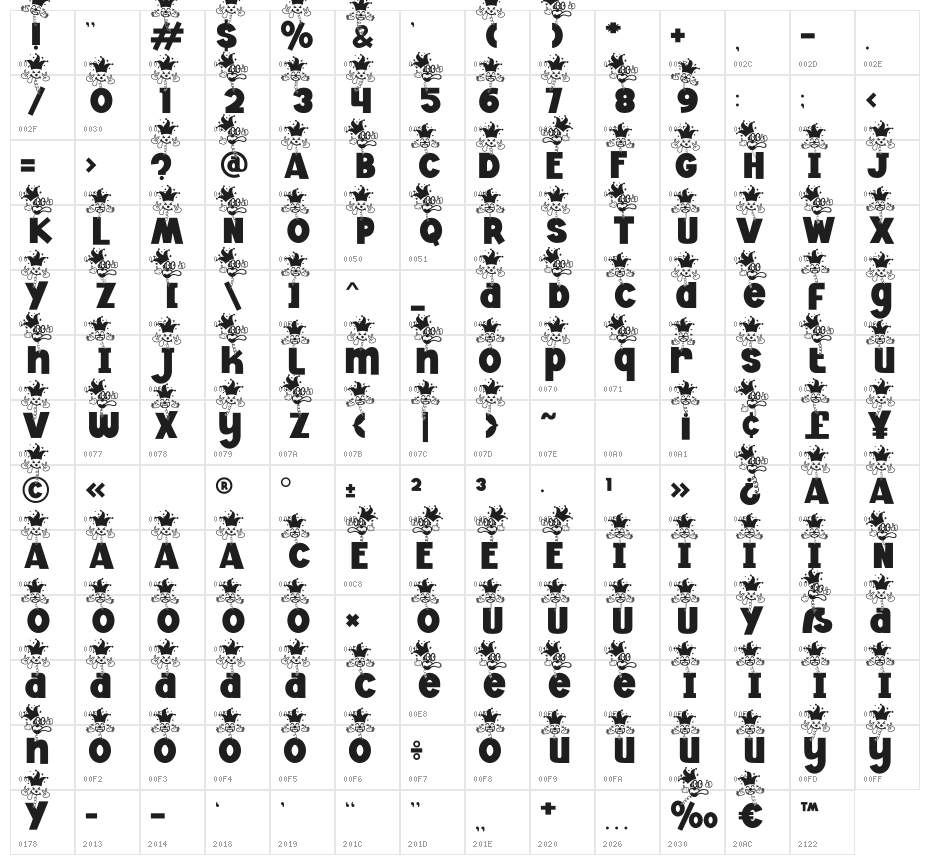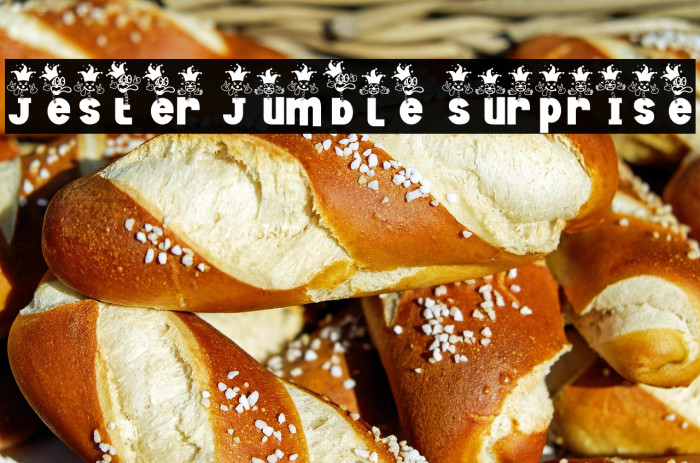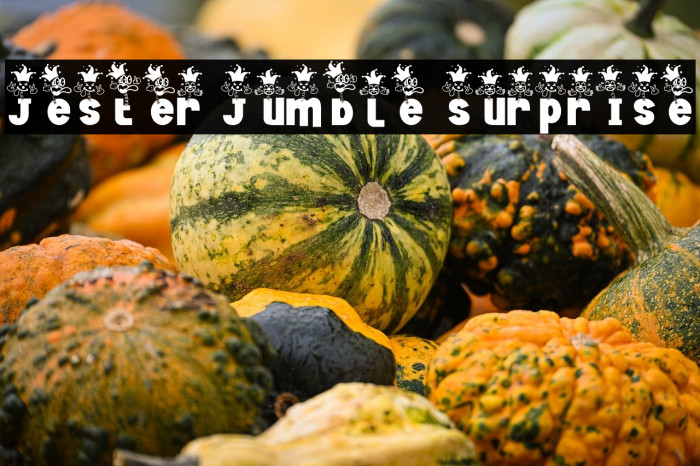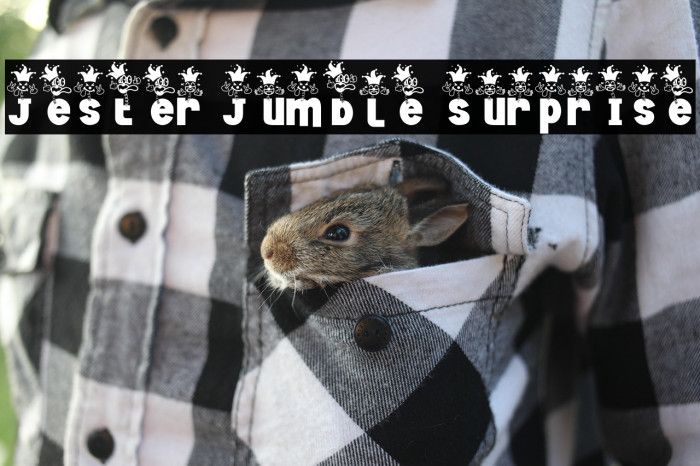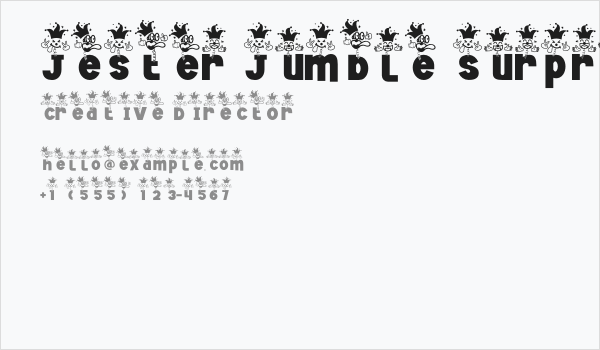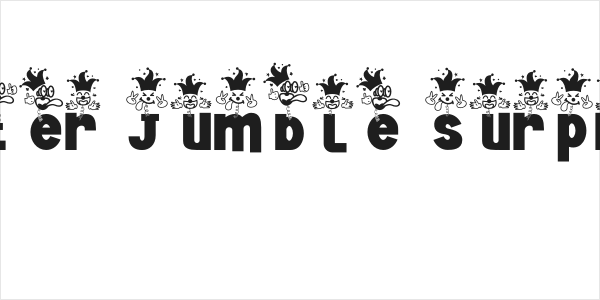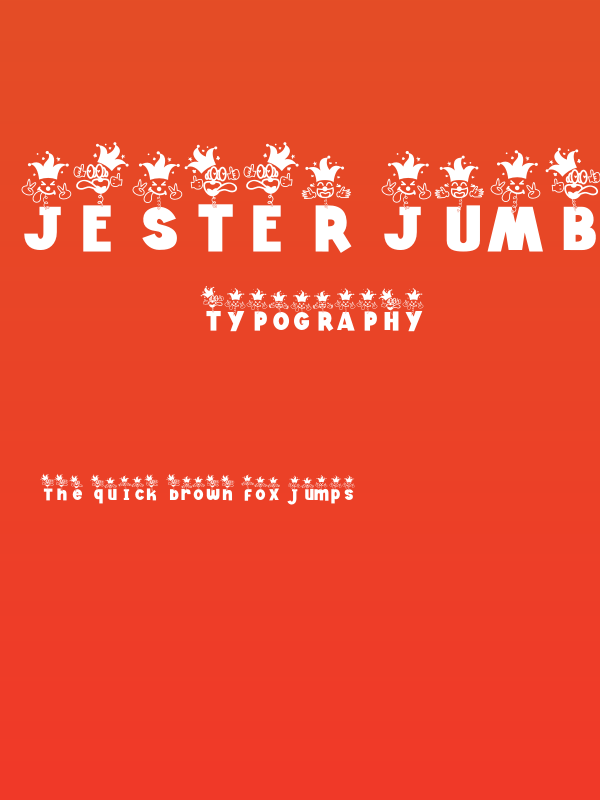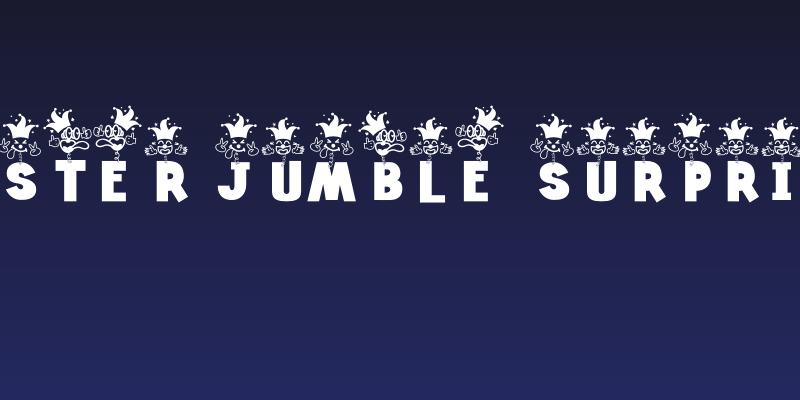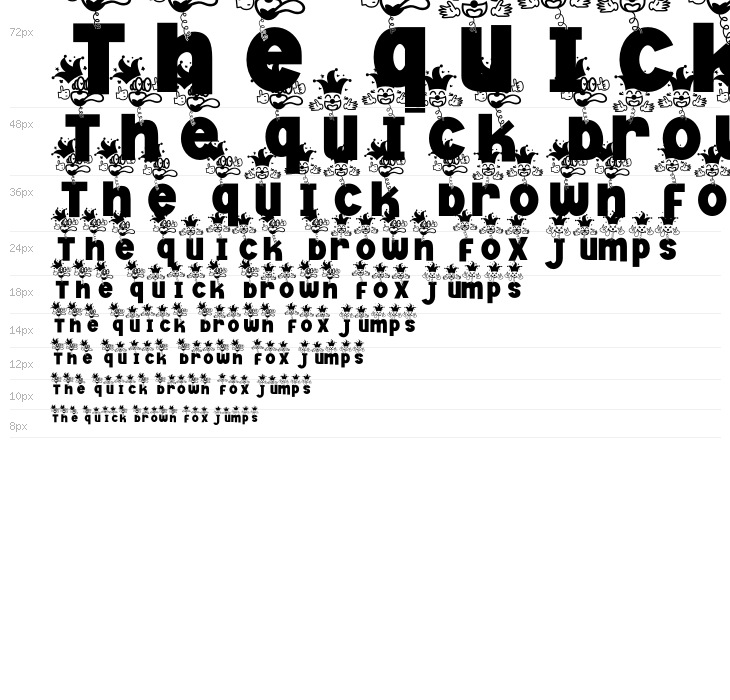
Jester Jumble Surprise Font
Jester Jumble Surprise Description
This playful and whimsical font features bold, rounded characters adorned with jester hats and expressive faces, adding a lively and humorous touch to each letter and symbol. The design is highly decorative, with a strong emphasis on fun and creativity, making it ideal for projects that require a lighthearted and entertaining aesthetic. The characters are evenly spaced, ensuring readability while maintaining their unique style. The font's bold weight and medium contrast make it stand out, perfect for capturing attention in various design contexts.
| Proposed Projects | Ideal for children's books, party invitations, playful branding, and festive event posters. |